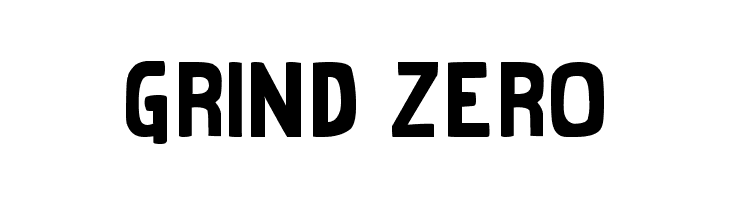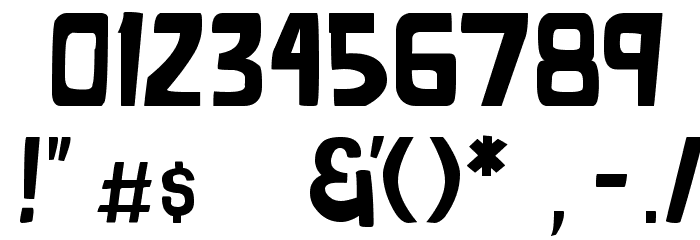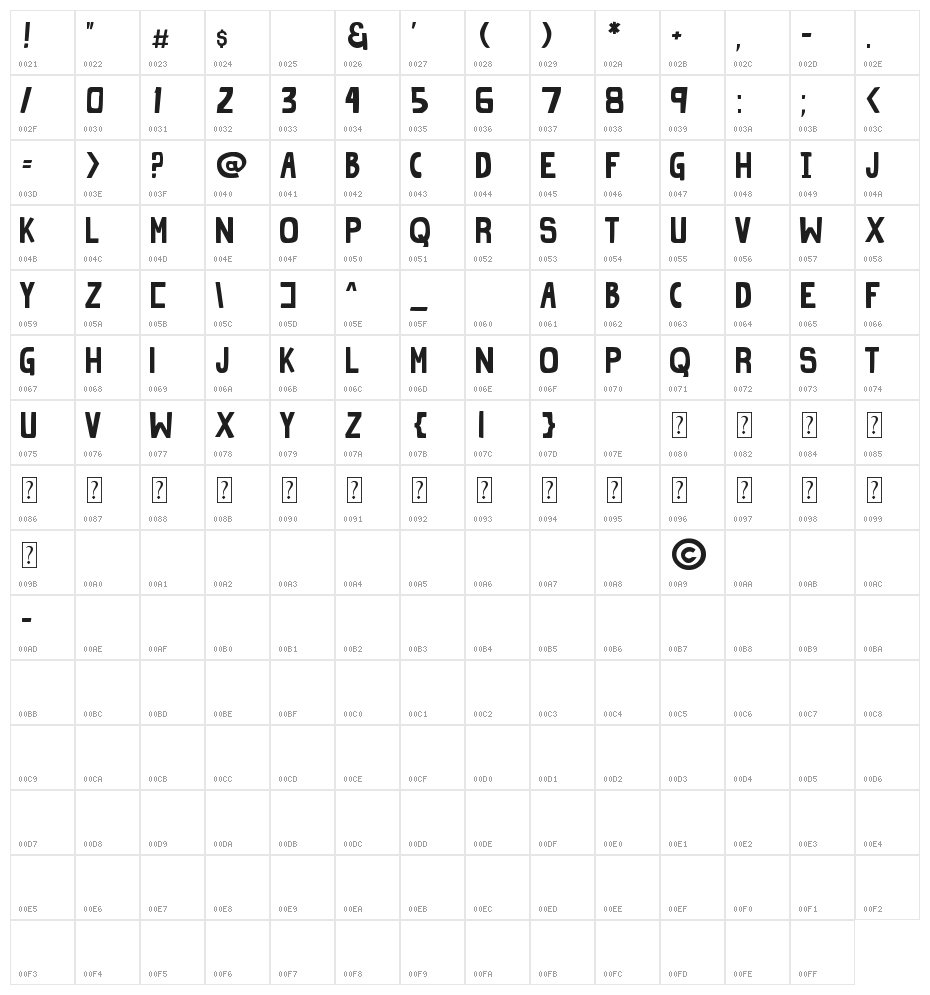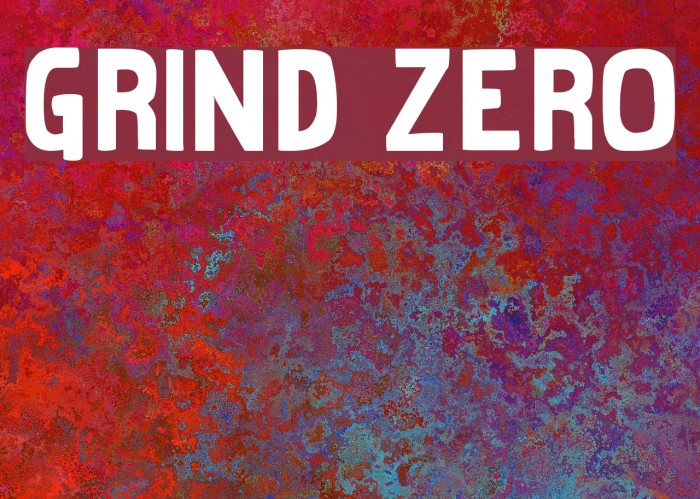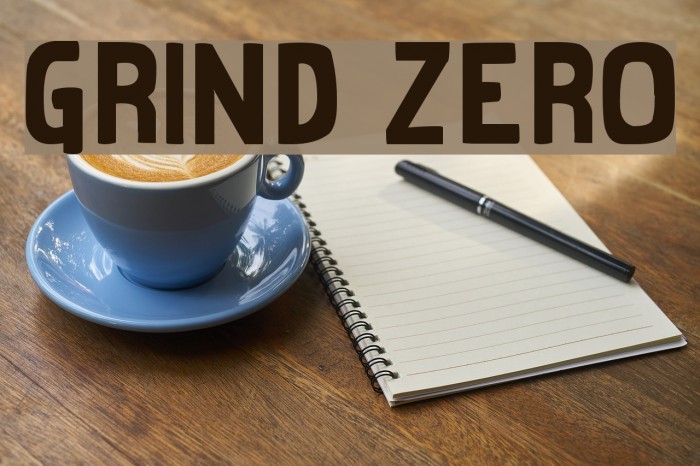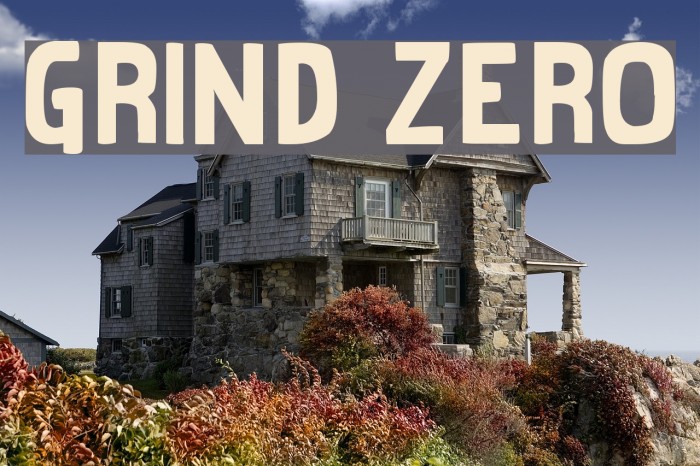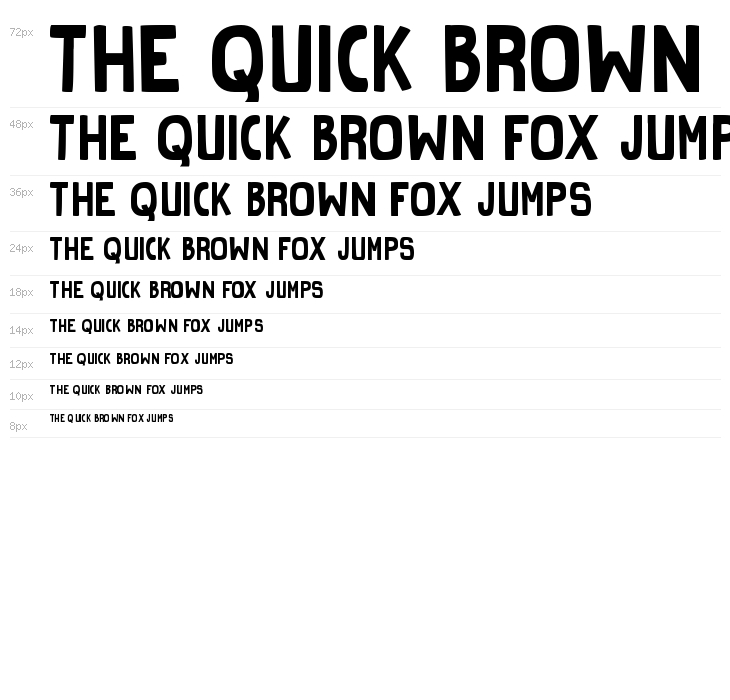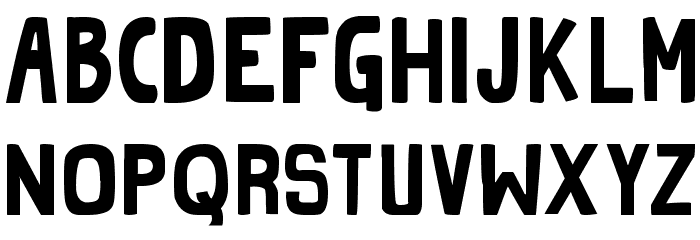
Grind Zero Font
Grind Zero Description
This font features a bold and impactful design with a modern aesthetic. The characters are slightly condensed, giving it a compact appearance while maintaining readability. The strokes are thick and uniform, providing a strong presence on the page. The uppercase letters are particularly striking, with angular edges and a geometric feel. The numerals and special characters follow the same bold style, ensuring consistency across all text elements. This font is well-suited for projects that require a strong visual impact, such as headlines, posters, and branding materials.
| Proposed Projects | Ideal for headlines, posters, branding, and any project needing a strong visual impact. |